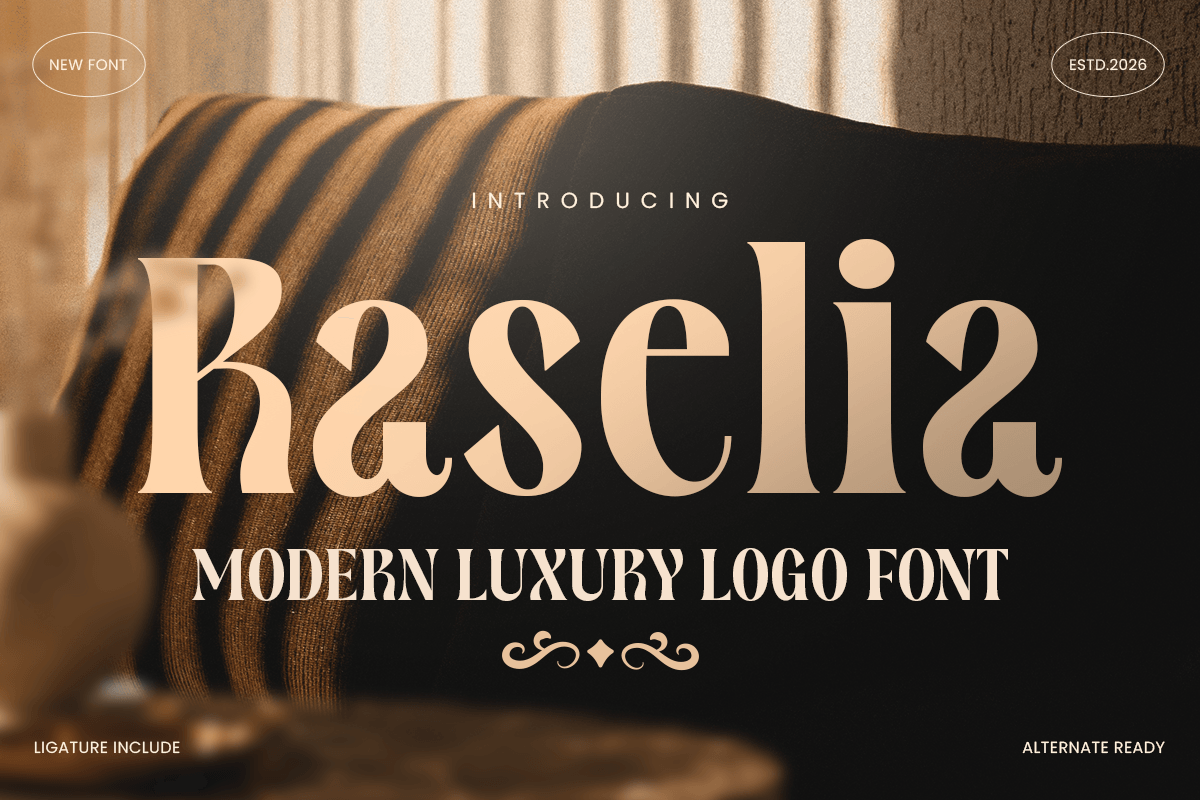
Raselia
-Luxury Editorial Serif FontRaselia - Luxury Editorial Serif Font
Raselia is a luxury editorial serif font designed to bring sophistication, elegance, and high-end visual appeal to modern design projects. With refined serif details, graceful proportions, and a timeless editorial aesthetic, this typeface is perfect for fashion magazines, luxury branding, premium packaging, and elegant visual identities.
Inspired by contemporary editorial typography, Raselia combines classic serif beauty with modern refinement. Its stylish letterforms create a sophisticated presence that enhances magazine covers, brand logos, beauty campaigns, invitations, and premium product designs.
Whether used for bold headlines, elegant titles, or luxury brand marks, Raselia delivers a polished and memorable typographic experience across both print and digital applications.
Raselia – Luxury Editorial Serif Font Features
Elegant editorial serif design with premium visual character
Perfect for fashion magazines, luxury branding, and packaging
Refined letterforms with timeless sophisticated details
Ideal for beauty, lifestyle, wedding, and high-end creative projects
OpenType features for advanced typographic styling
Elevate your visual storytelling with Raselia – the ultimate luxury serif font for editorial design, premium branding, and sophisticated typography. ✨📖